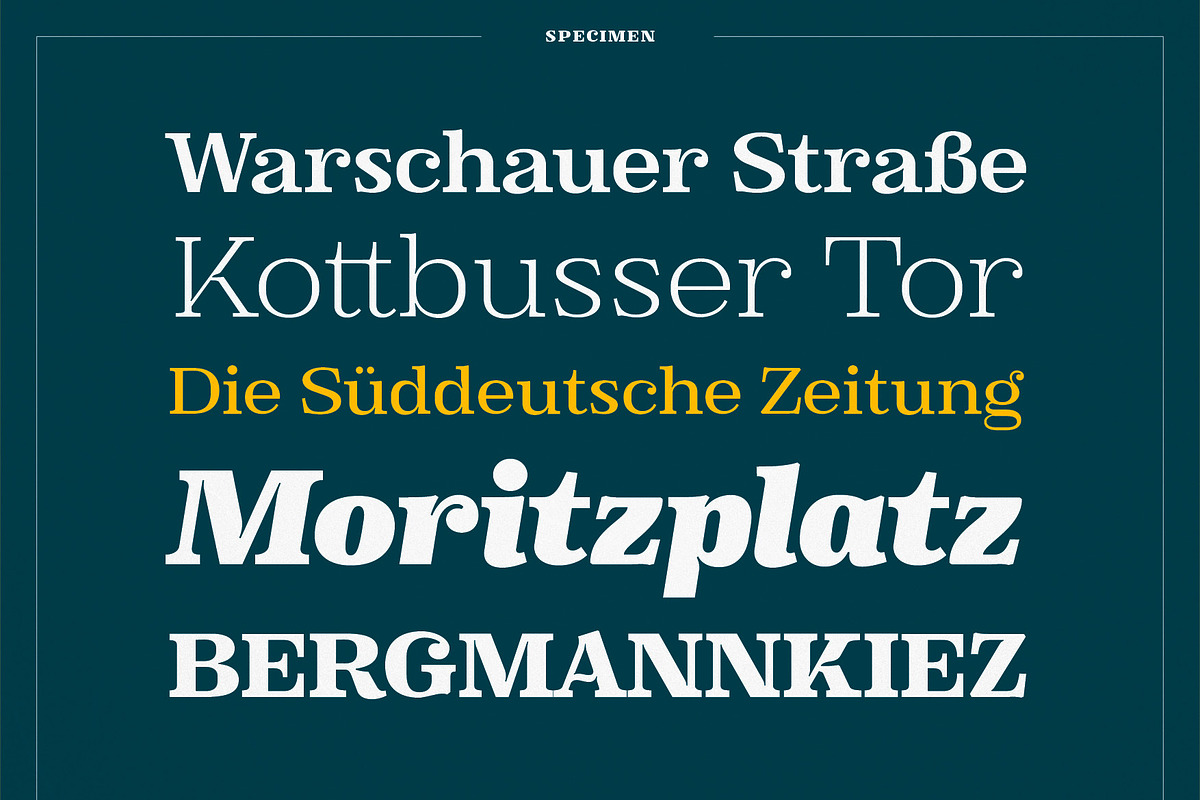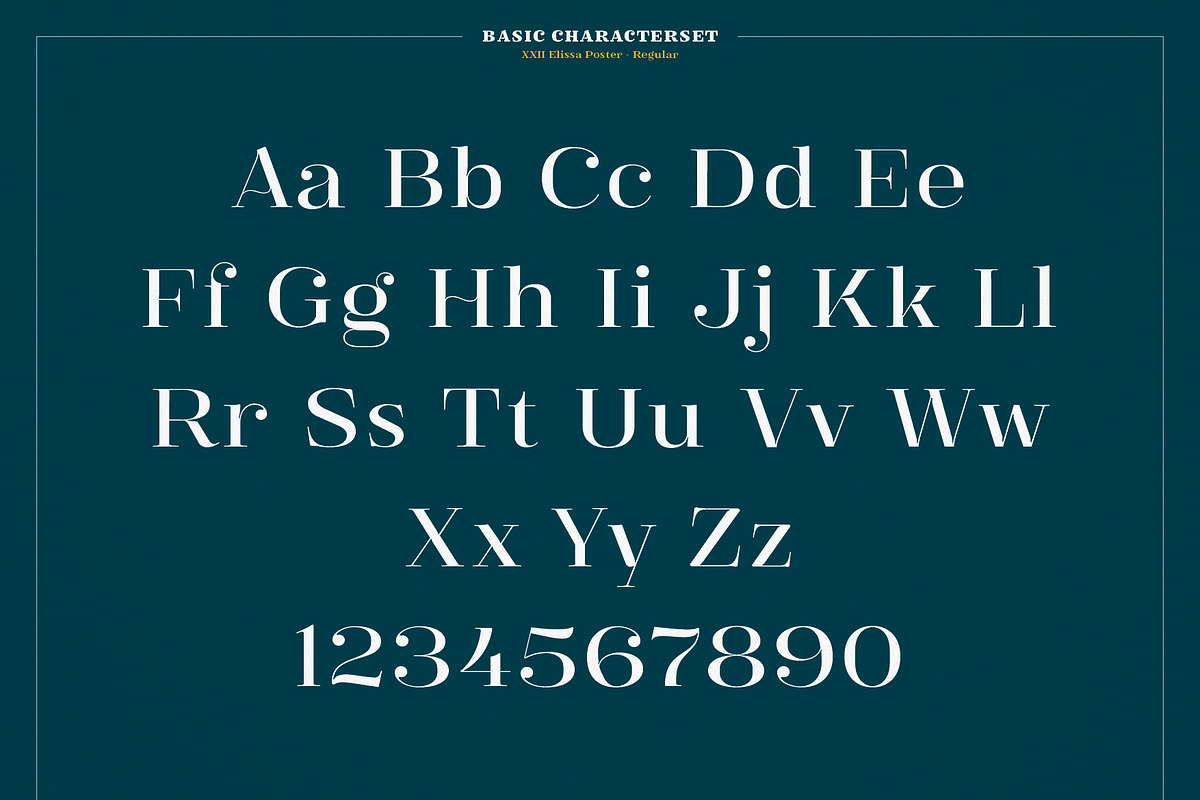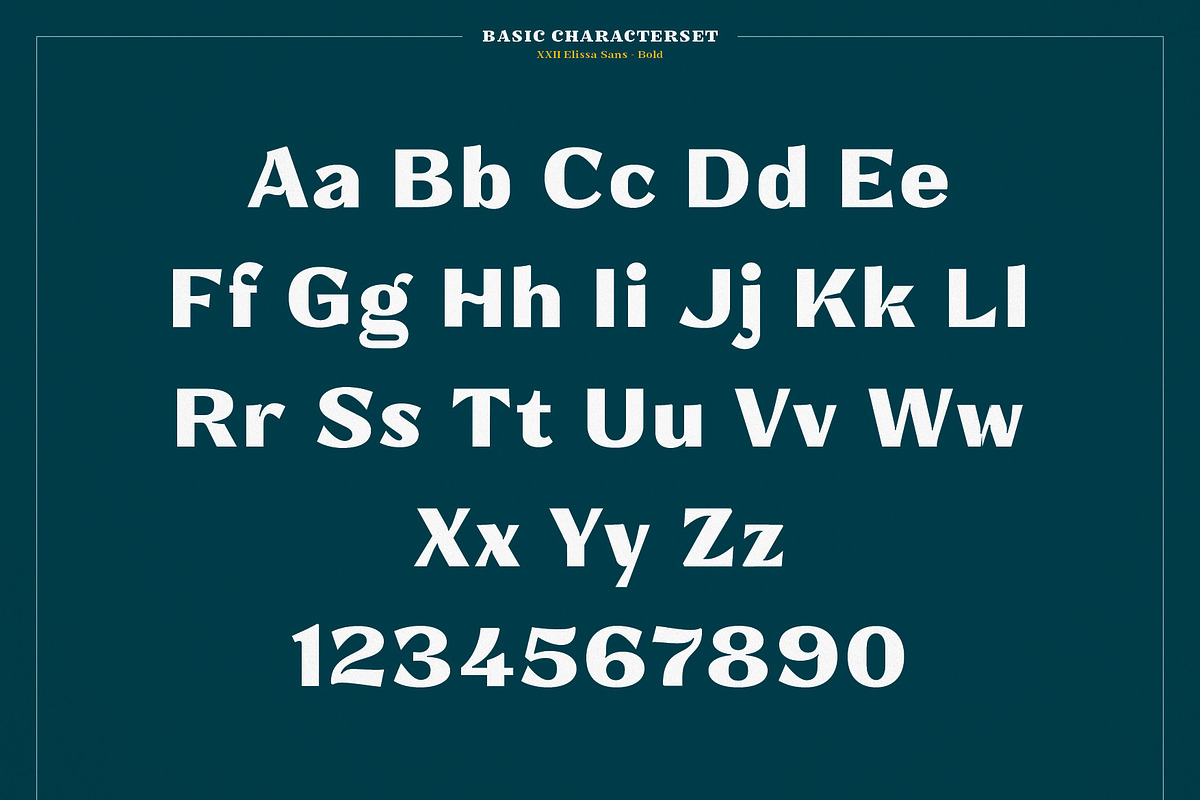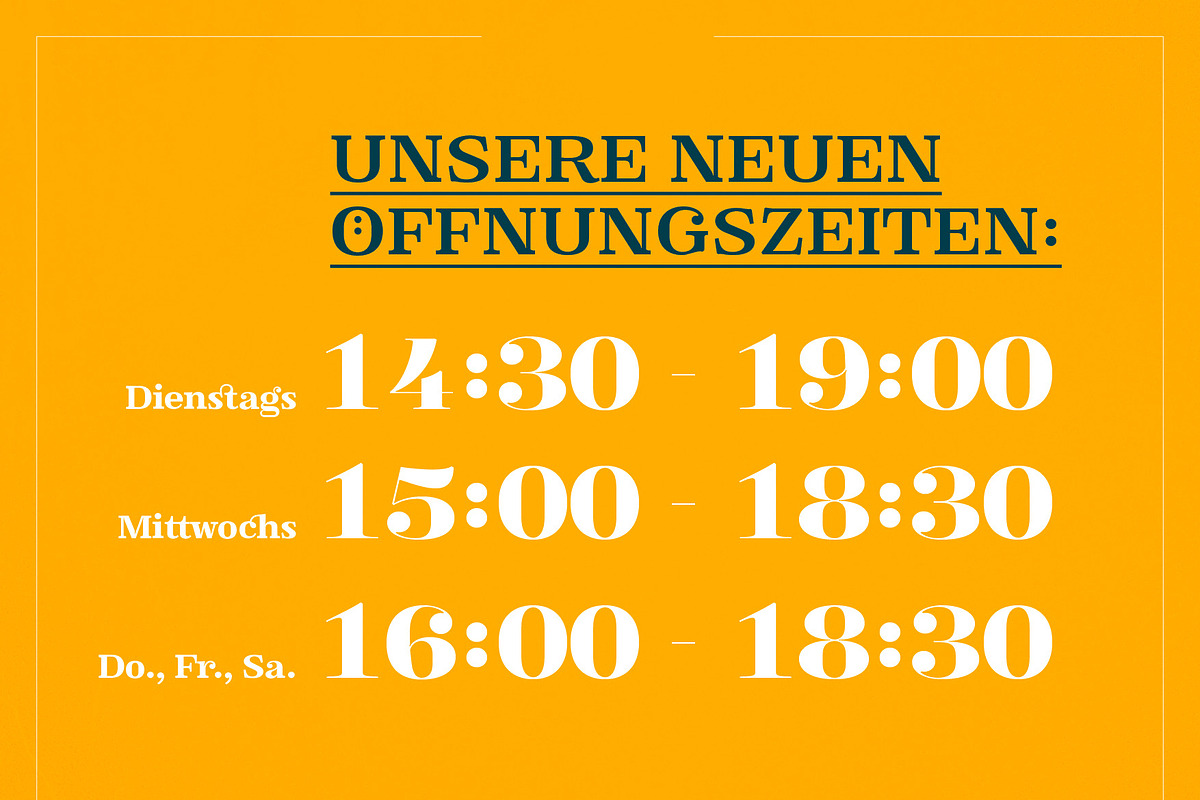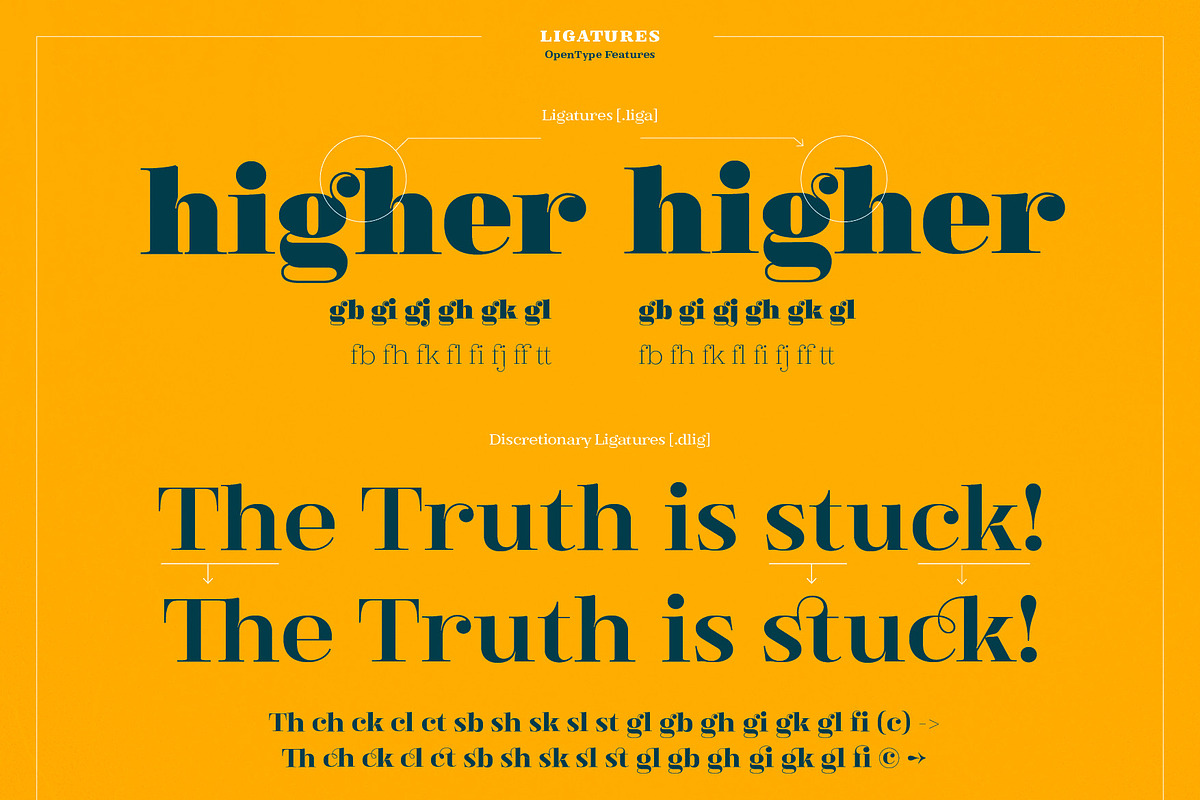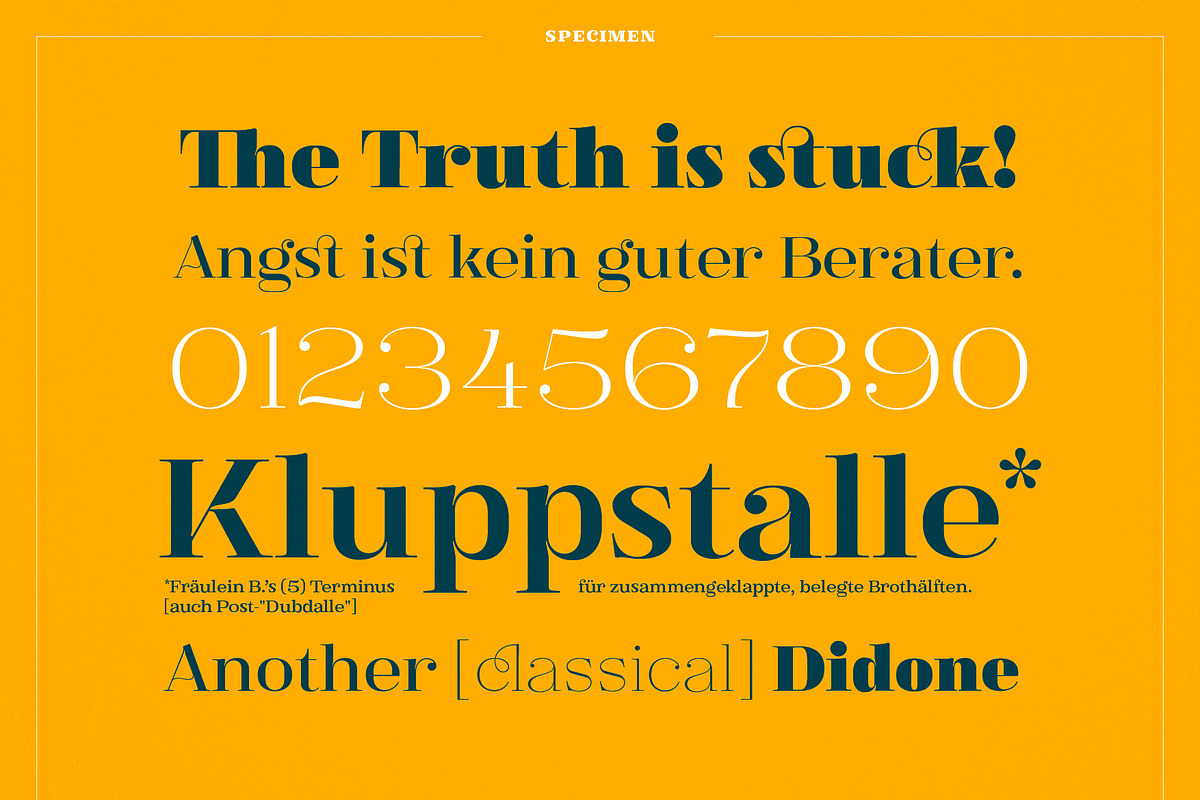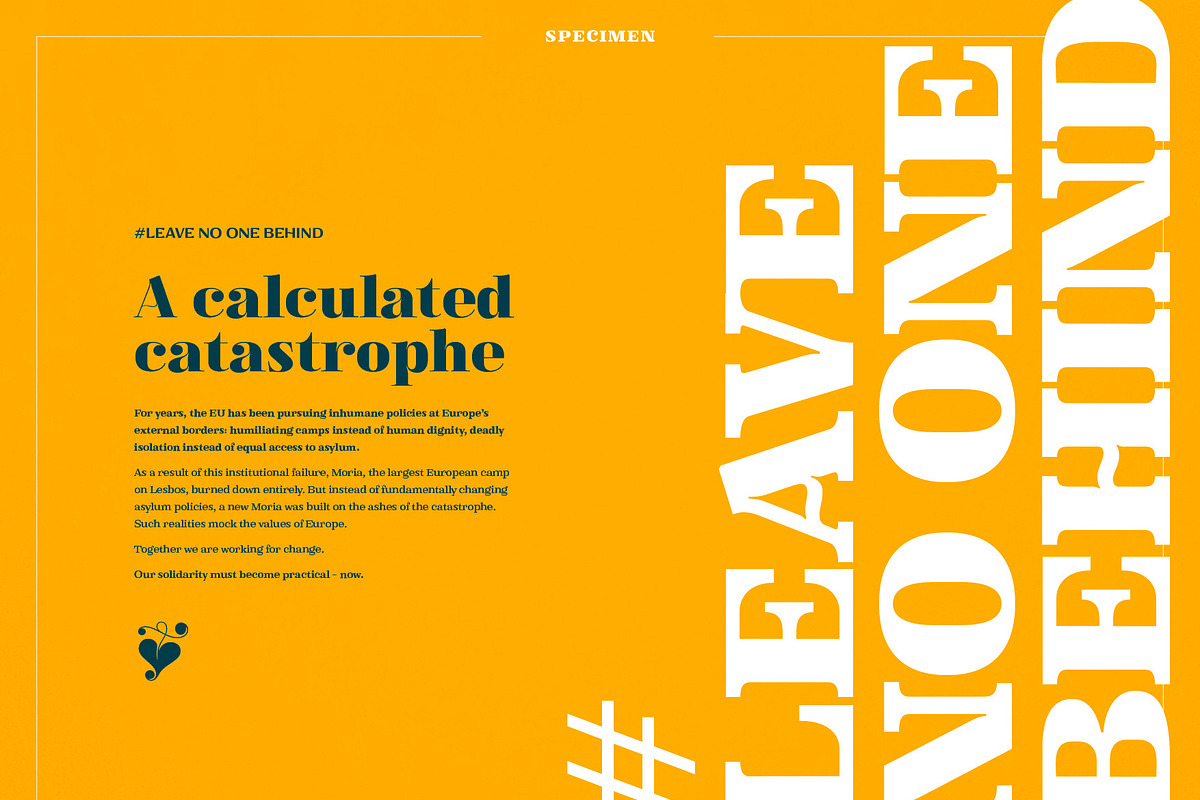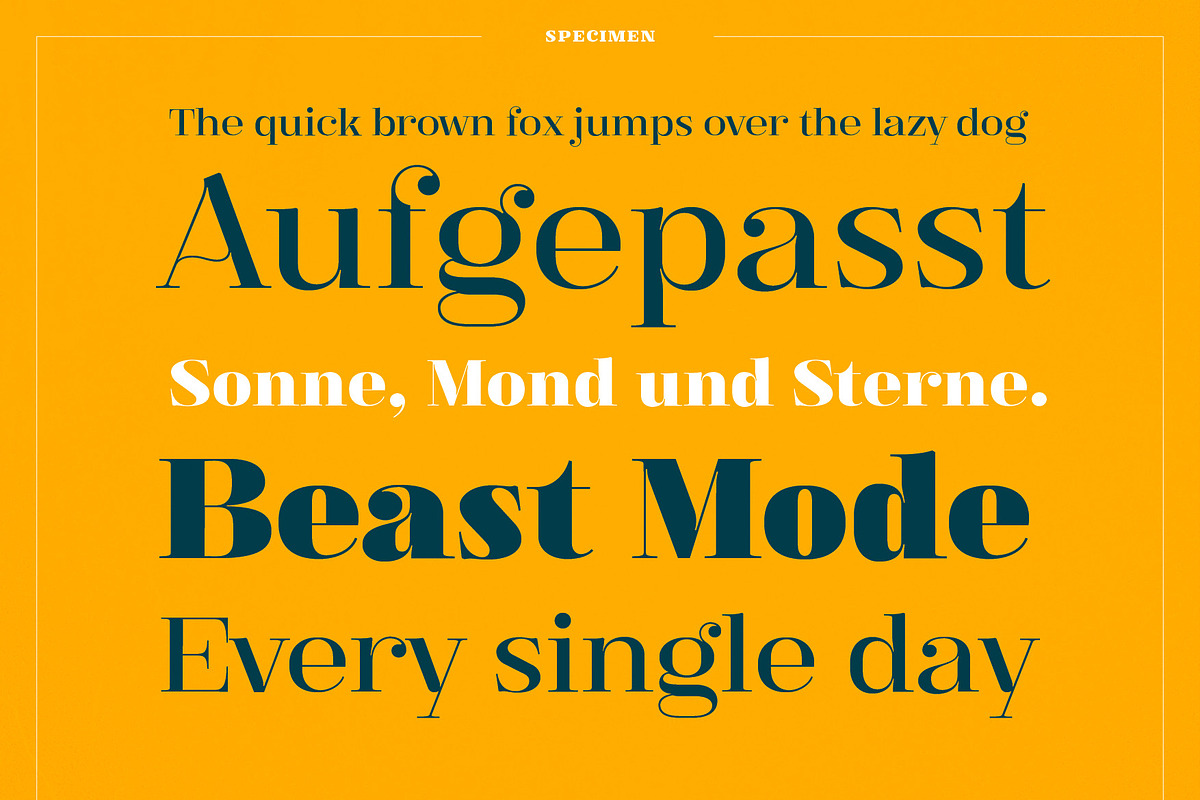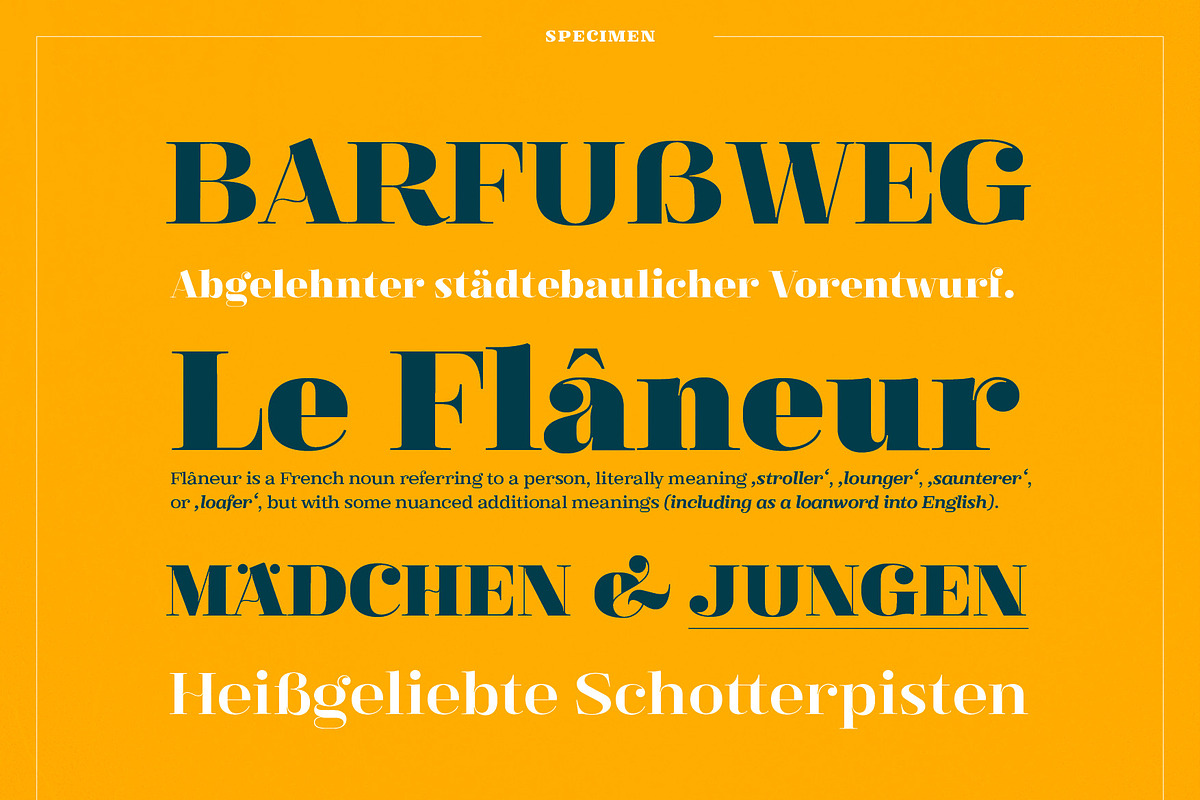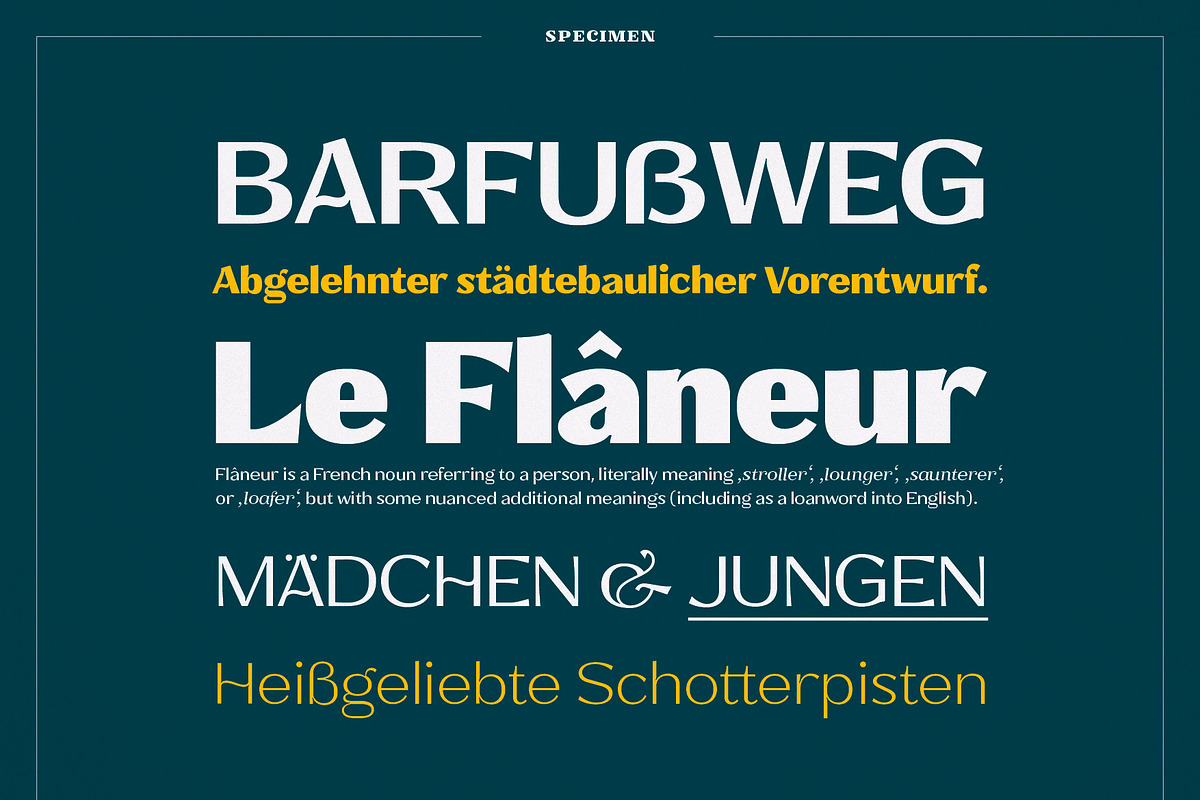
XXII Elissa
XXII Elissa is a family of 32 fonts with 3 different specific sub families Poster, Sans, Text.
“Poster” is the high contrast family created for bold headlines, the “Text” family is for sublines and copytexts and the “Sans” family is for another flavour to those serif ones. All families support a bunch of languages and come with some stylistic and contextual alternates as well as a bunch of ligatures.
For lovers of Clarendon and didone fonts.